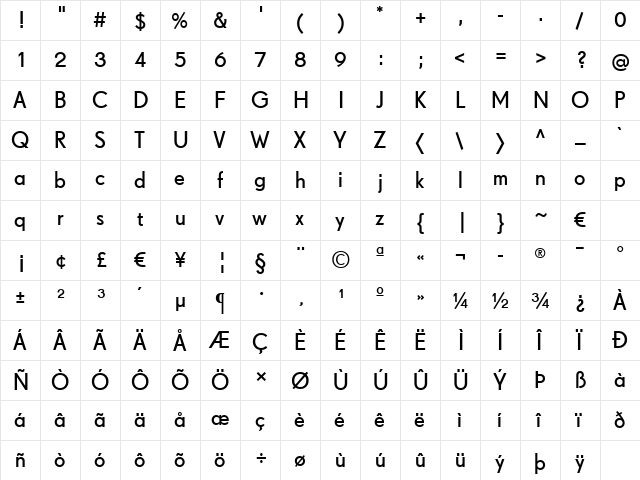
Drescher Grotesk BT SemiBold Regular
Design Context for Drescher Grotesk BT SemiBold Typeface
Drescher Grotesk BT SemiBold takes a clean, functional approach — its unadorned letterforms prioritise legibility and work reliably across screen and print environments. The heavy weight commands attention and anchors typographic hierarchies.
Font Pairing: Works well alongside a characterful serif or display font that can carry the expressive load while Drescher Grotesk BT SemiBold handles the functional copy.
Pro Tip: Use Drescher Grotesk BT SemiBold for UI labels, navigation, and short-form body copy where clean legibility is the priority.